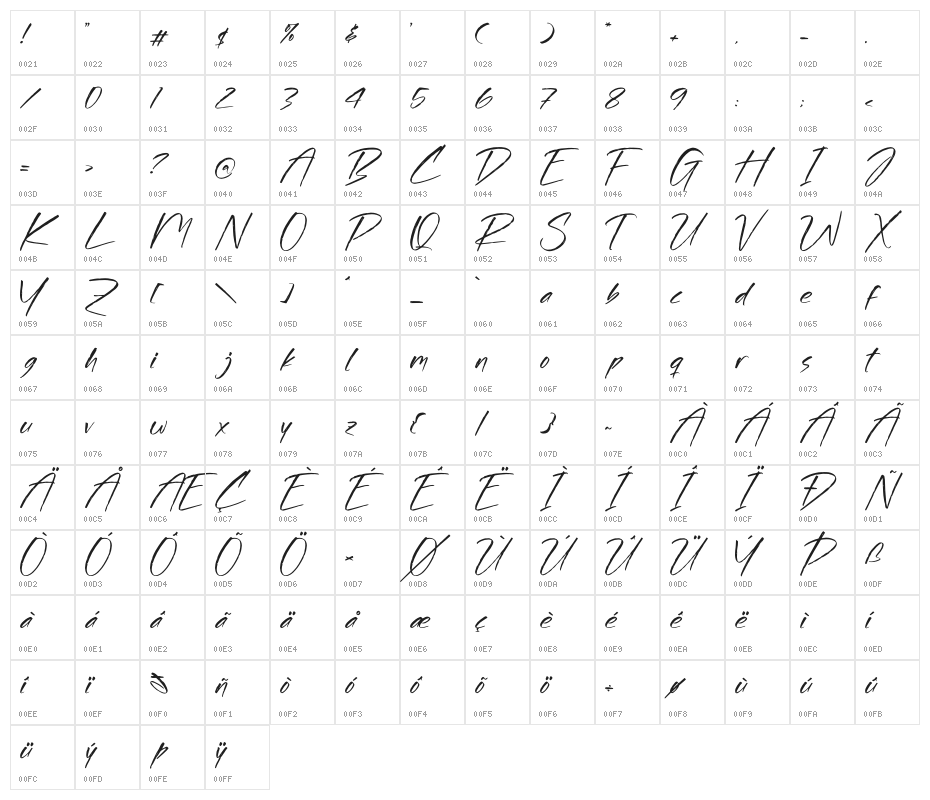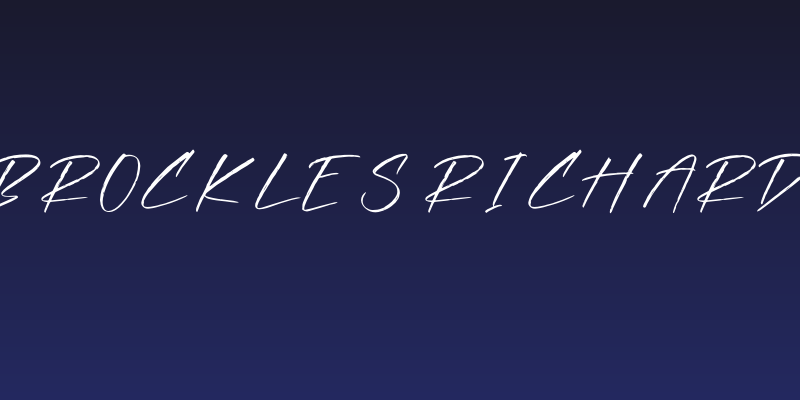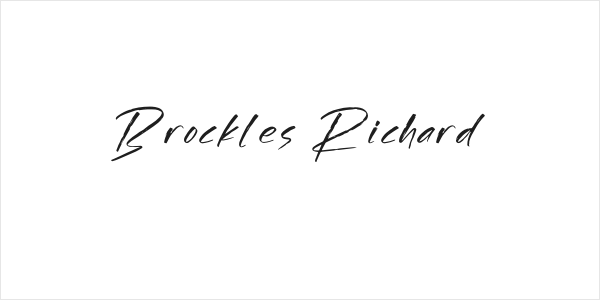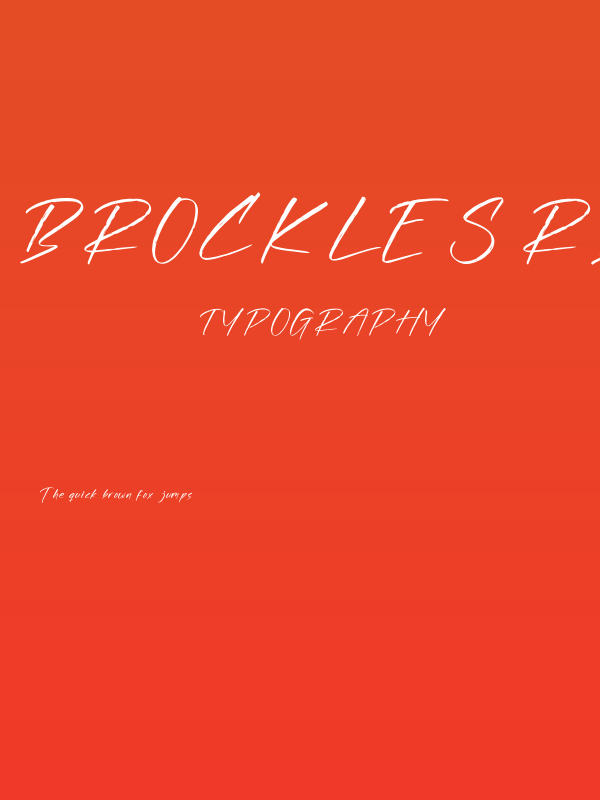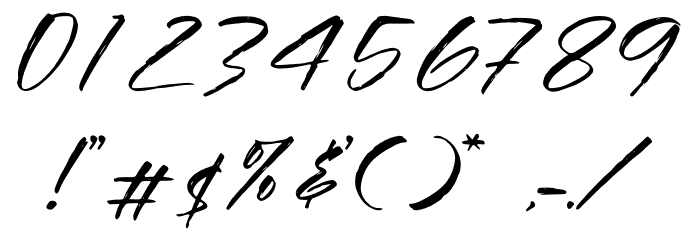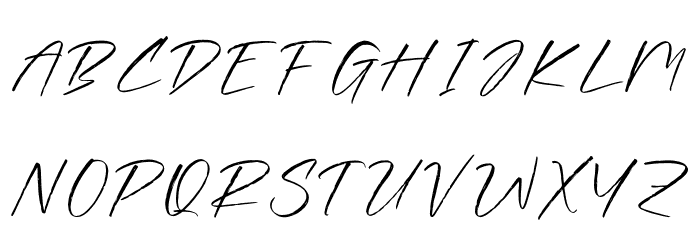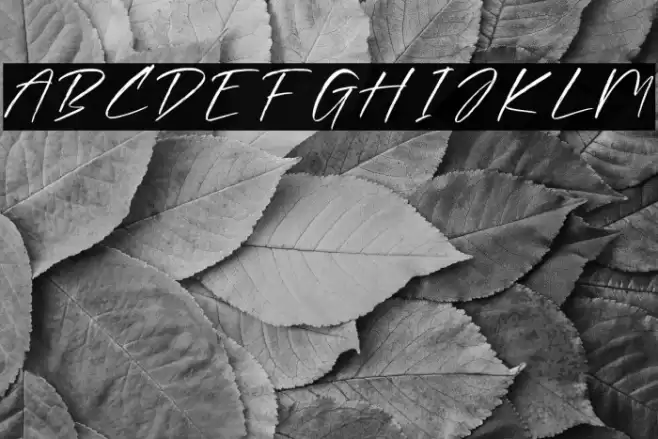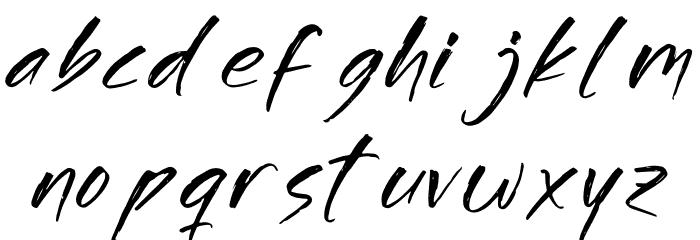
Brockles Richard Font
Brockles Richard Description
This font exhibits a dynamic and expressive style, characterized by its handwritten appearance. The uppercase letters are elegant and slightly slanted, giving a sense of motion and fluidity. The lowercase letters maintain a consistent flow, with varying stroke widths that add a lively touch. Numbers and special characters follow the same energetic style, making the font versatile for creative projects. The overall design is both artistic and legible, suitable for capturing attention while maintaining readability.
| Proposed Projects | Ideal for greeting cards, invitations, branding, and artistic posters. |